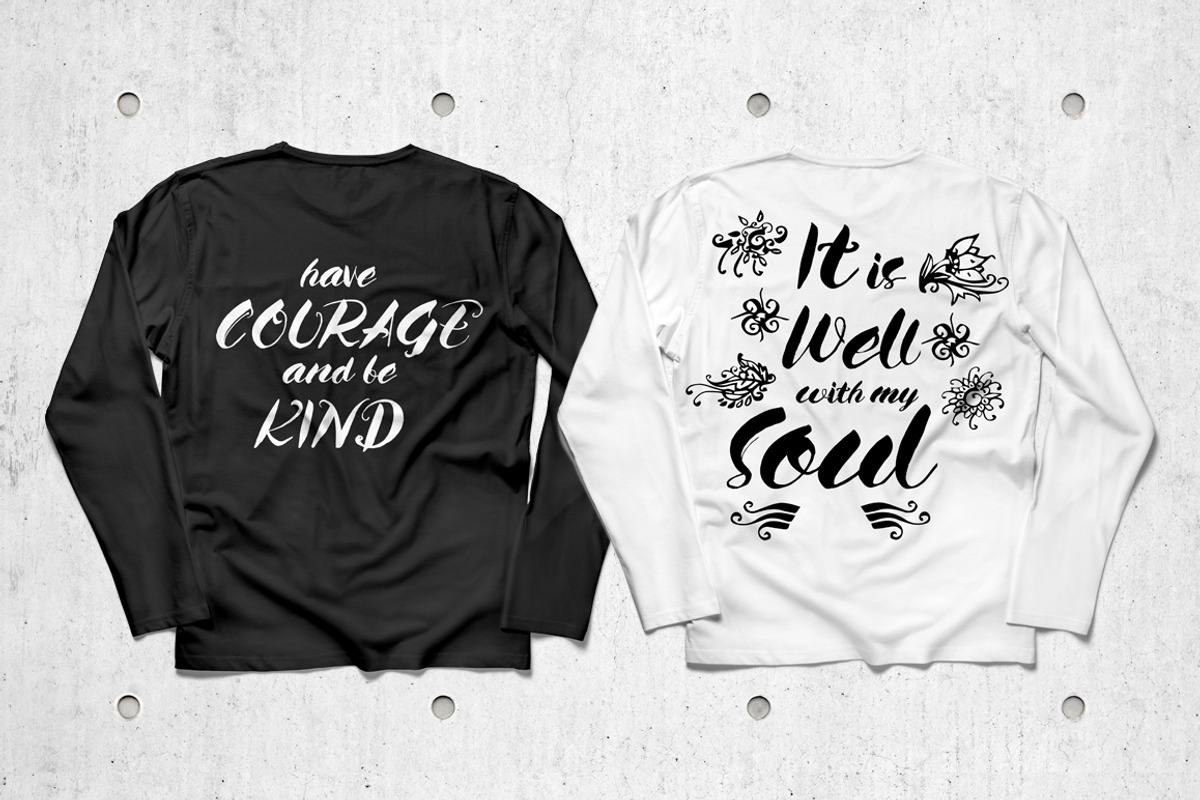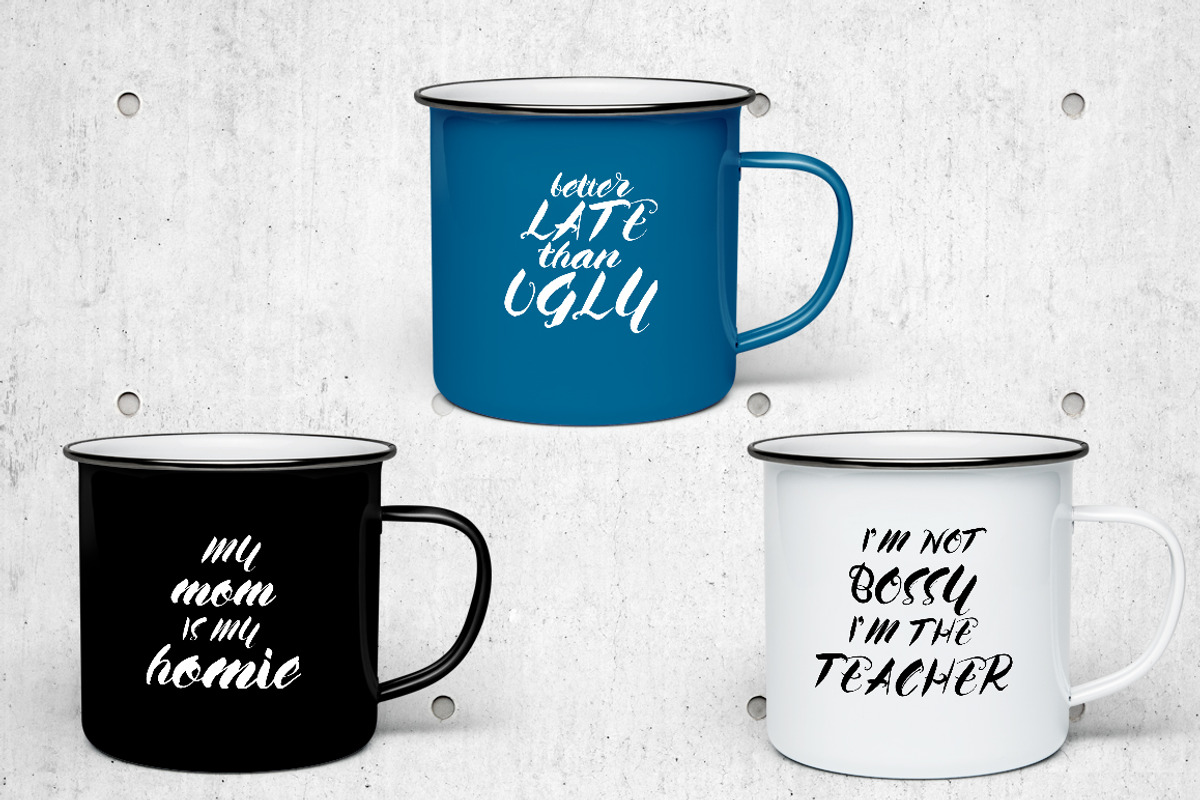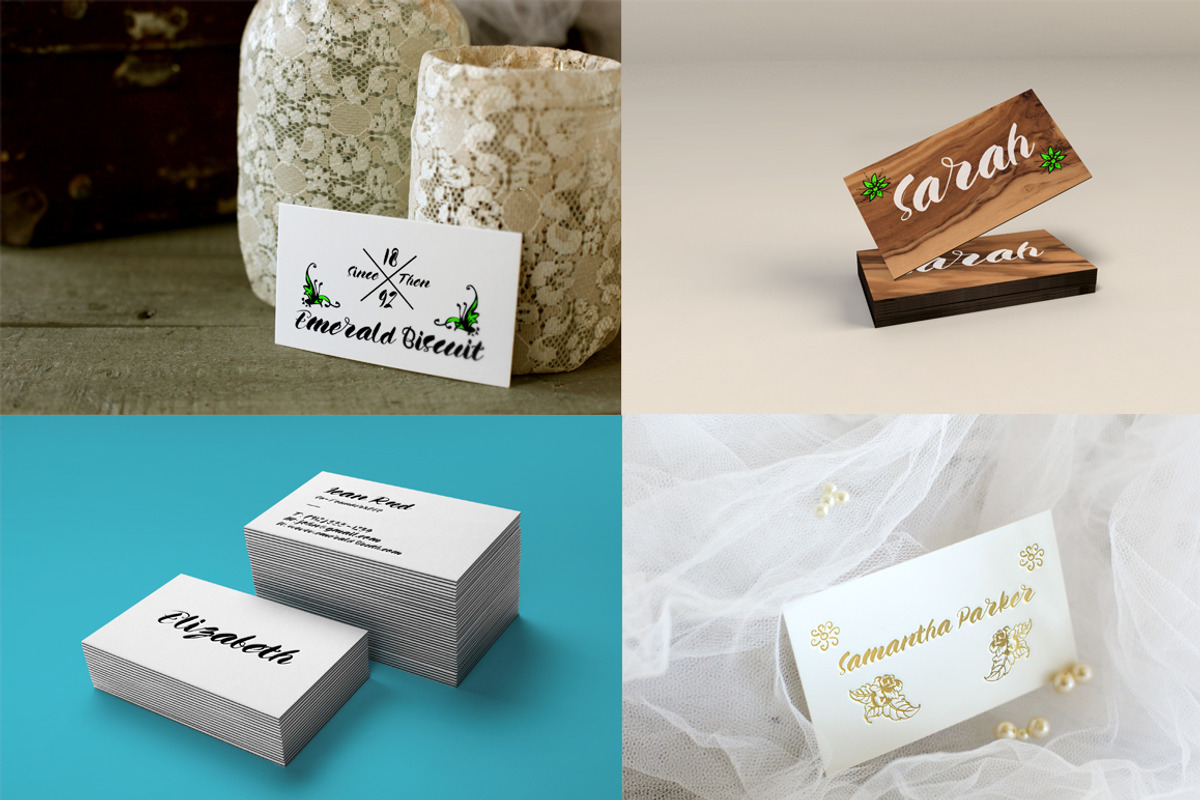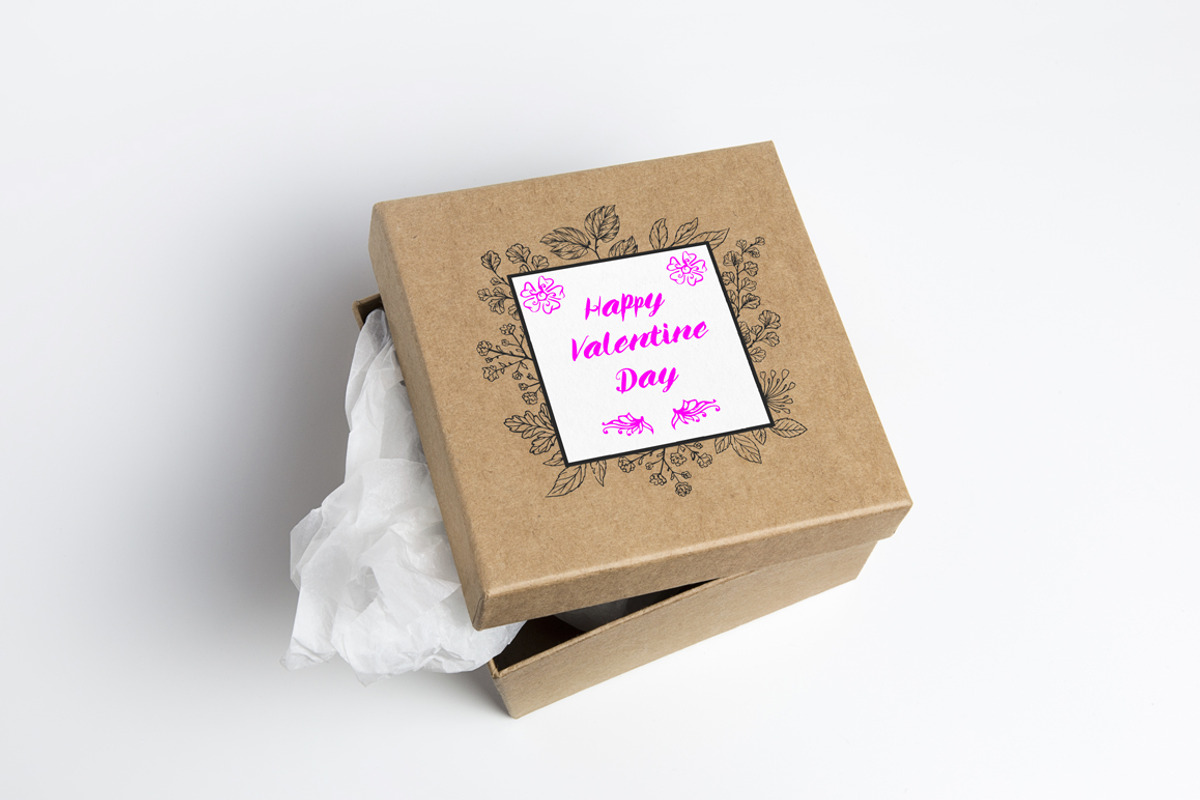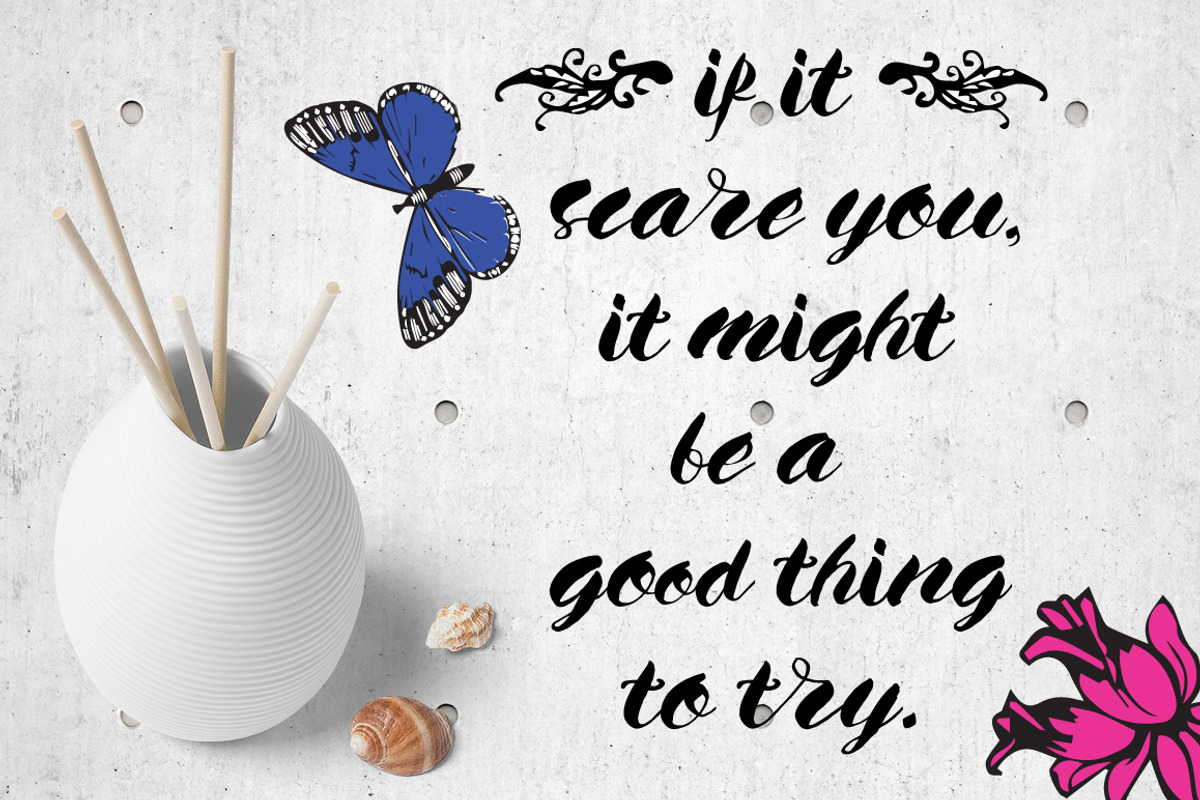
Emerald Brush Font
Emerald Brush Font by D'musketer Studio is a font selected for branding, posters, packaging, typography.
- Emerald Brush Font is a hand brushed typeface, with authentic tell-tale dry brush imperfections, and a very bouncy baseline :), and a super
- Ligatures are also included also - to bring true authenticity to your design.
Why Emerald Brush Font is worth a look
Emerald Brush Font by D'musketer Studio fits naturally into Branding, posters, packaging, typography.